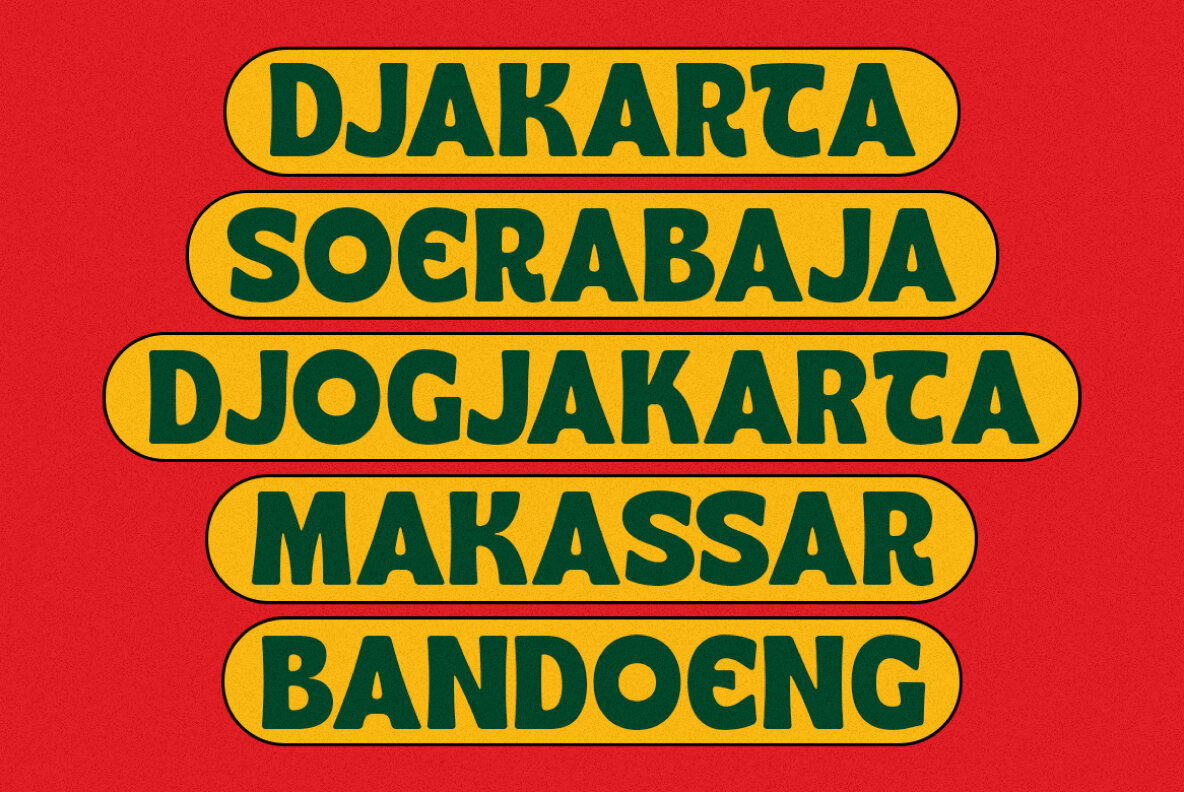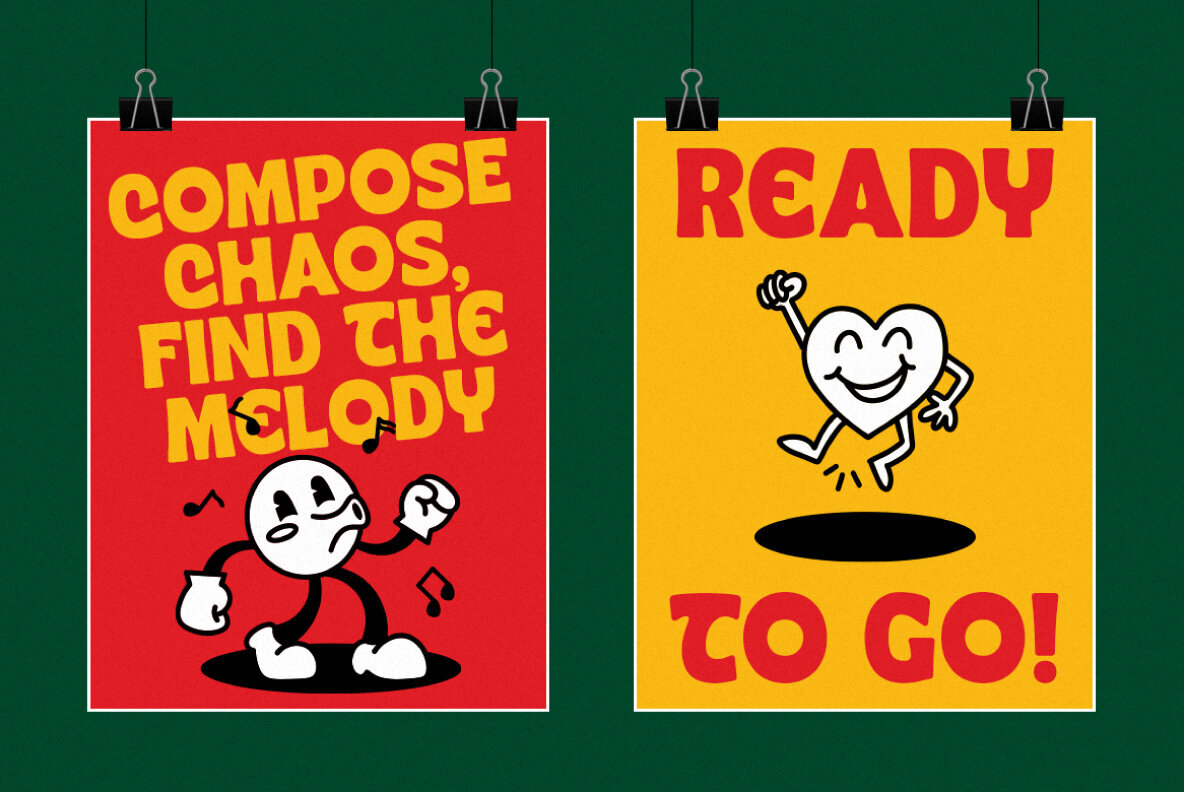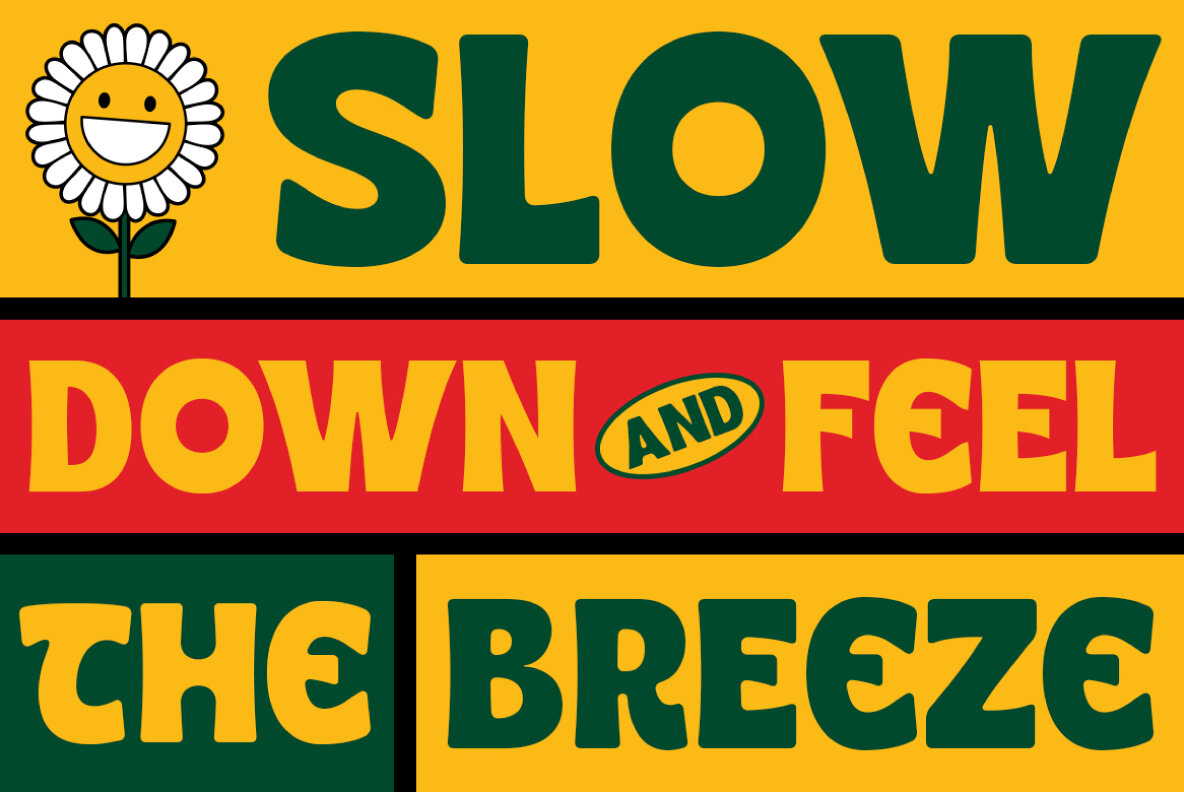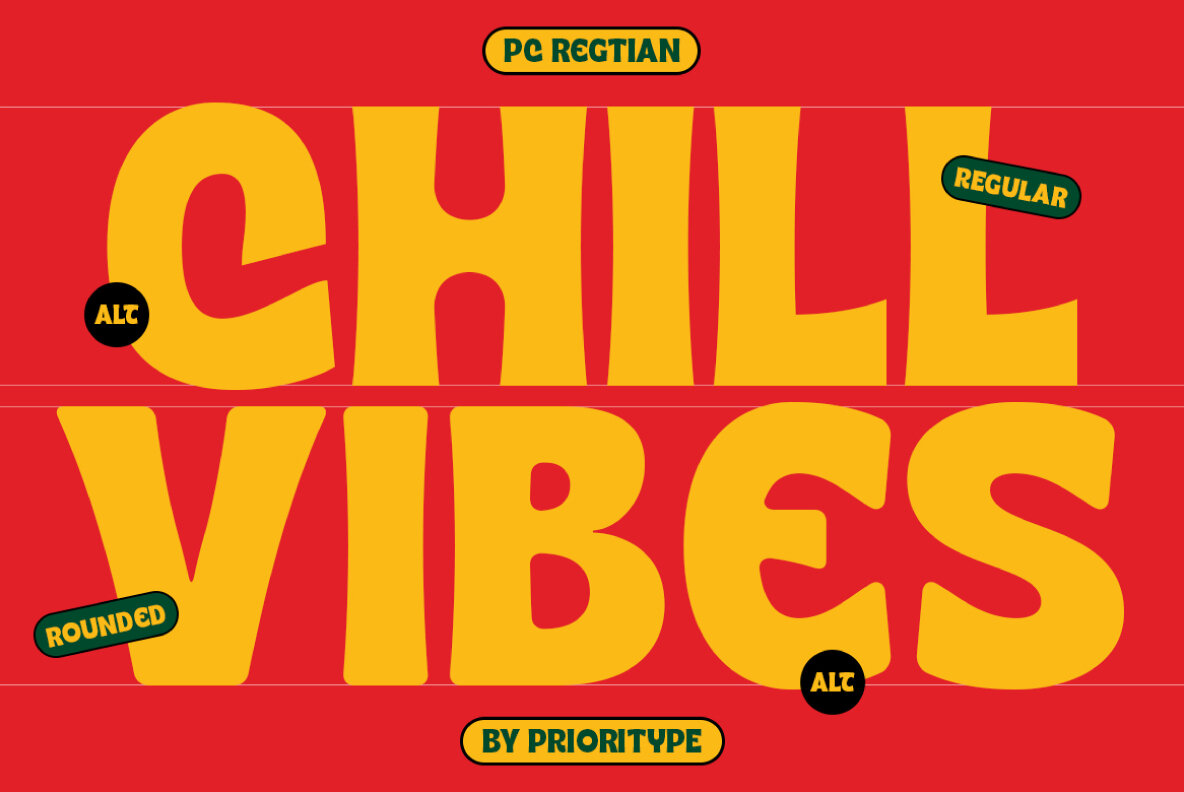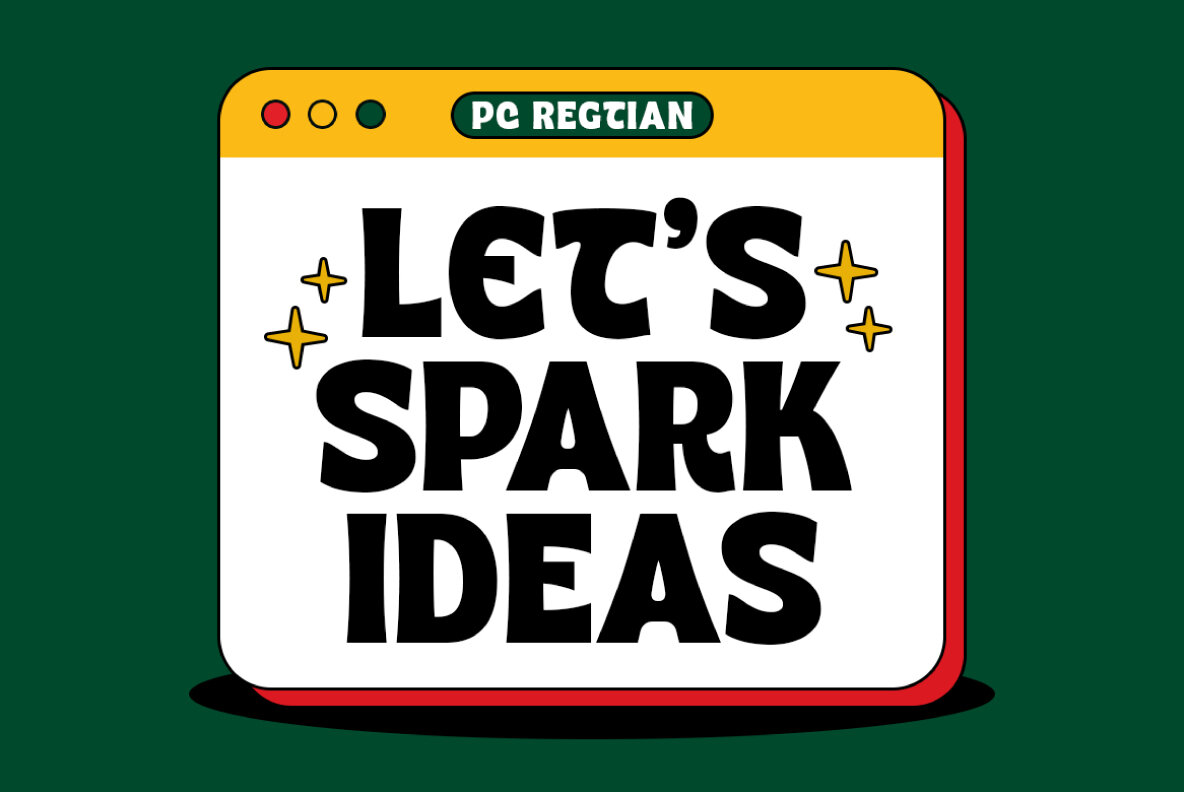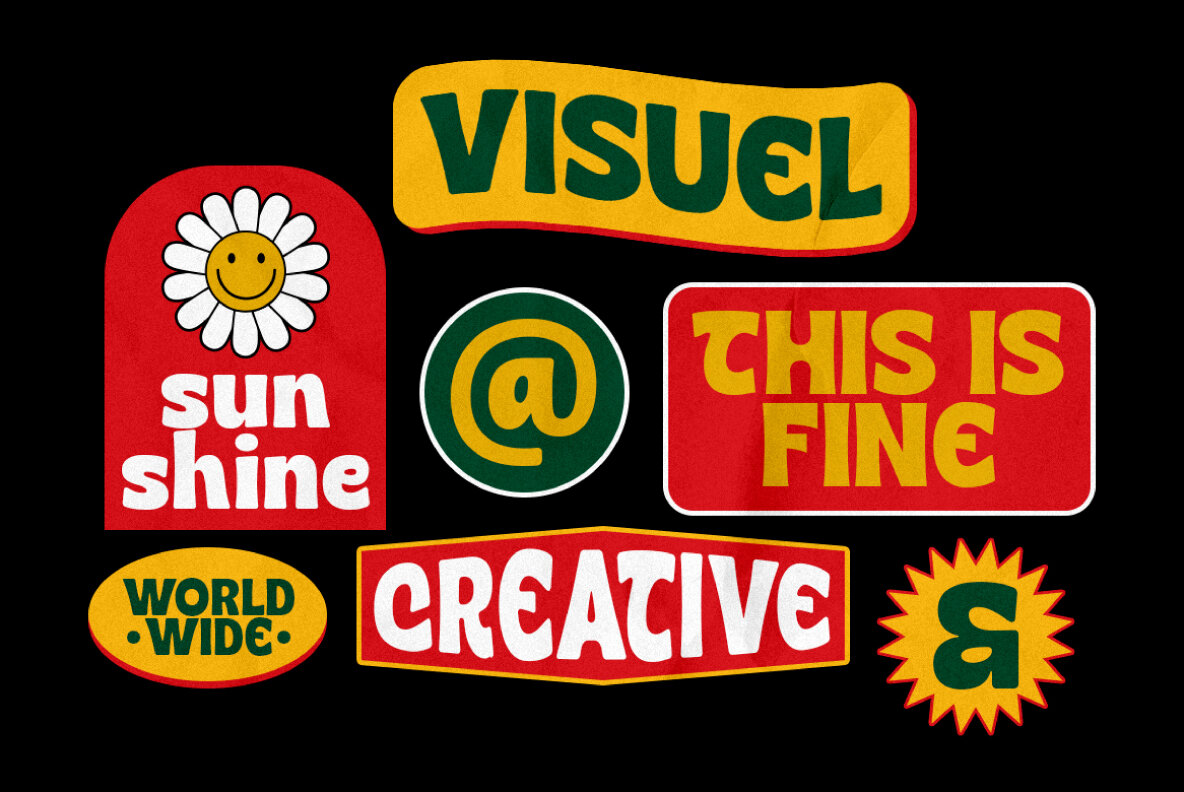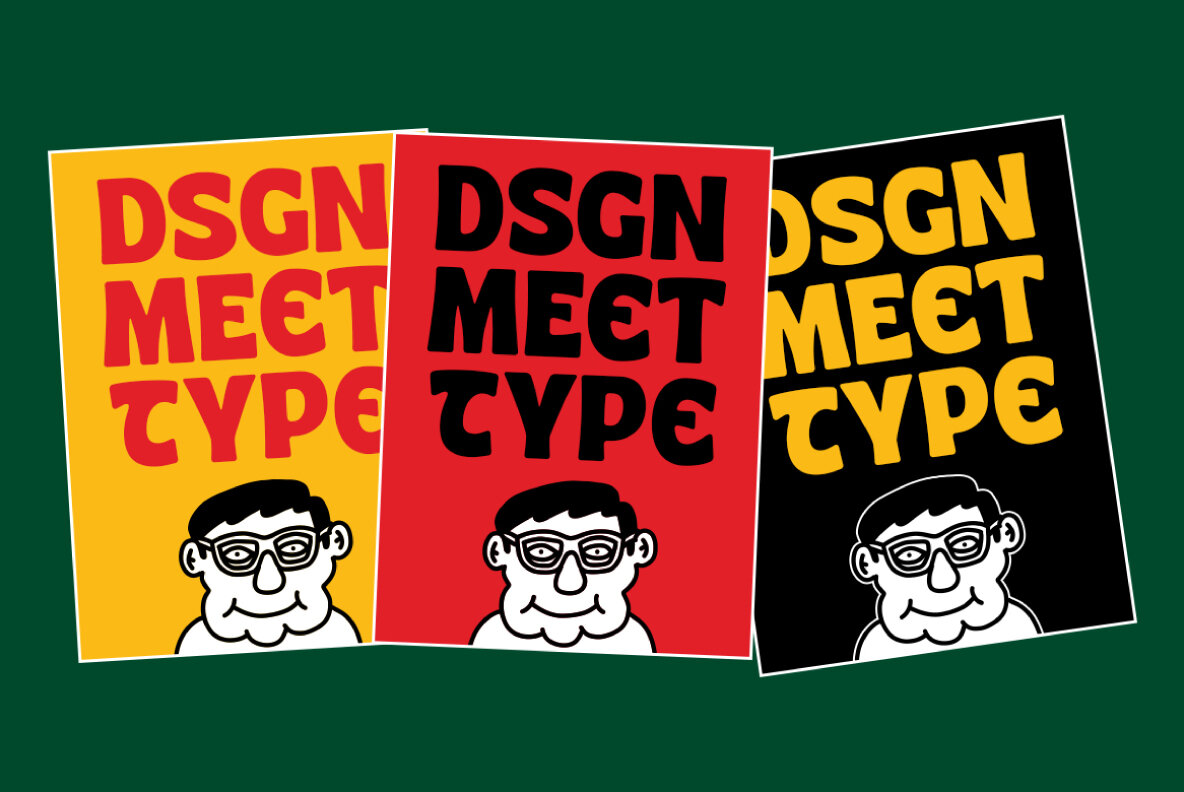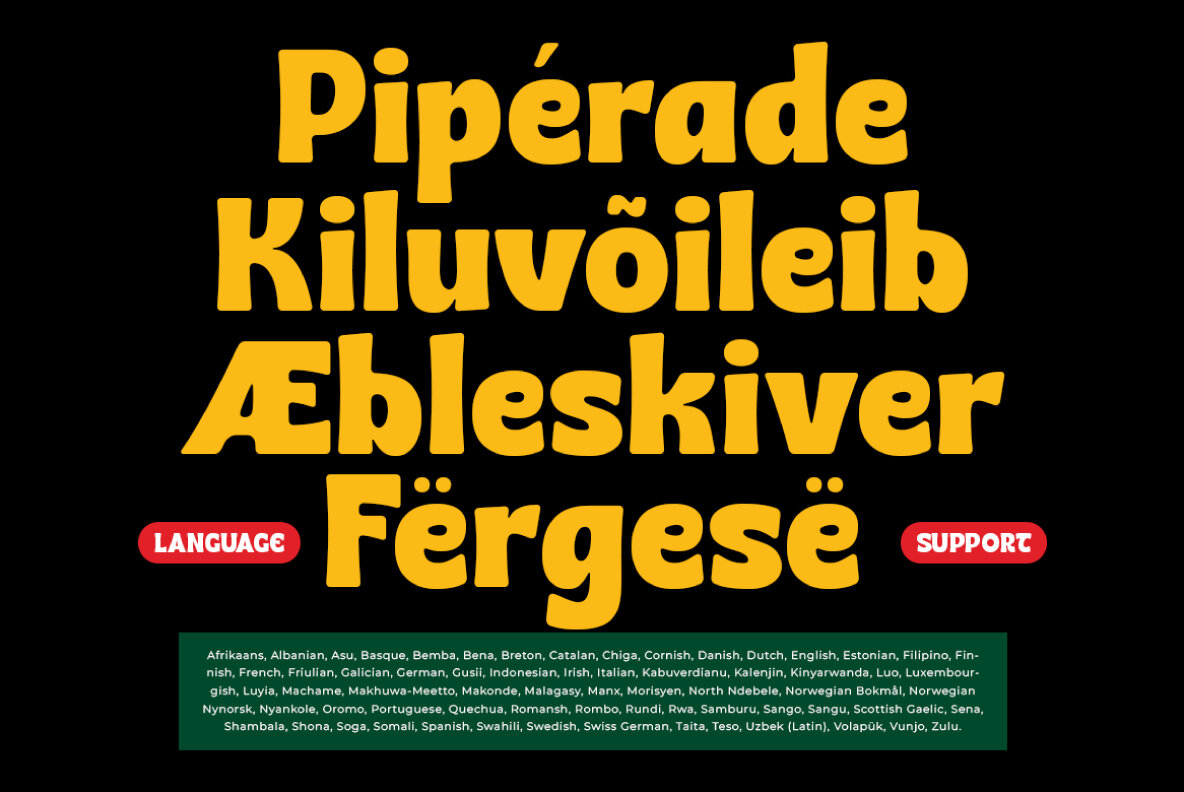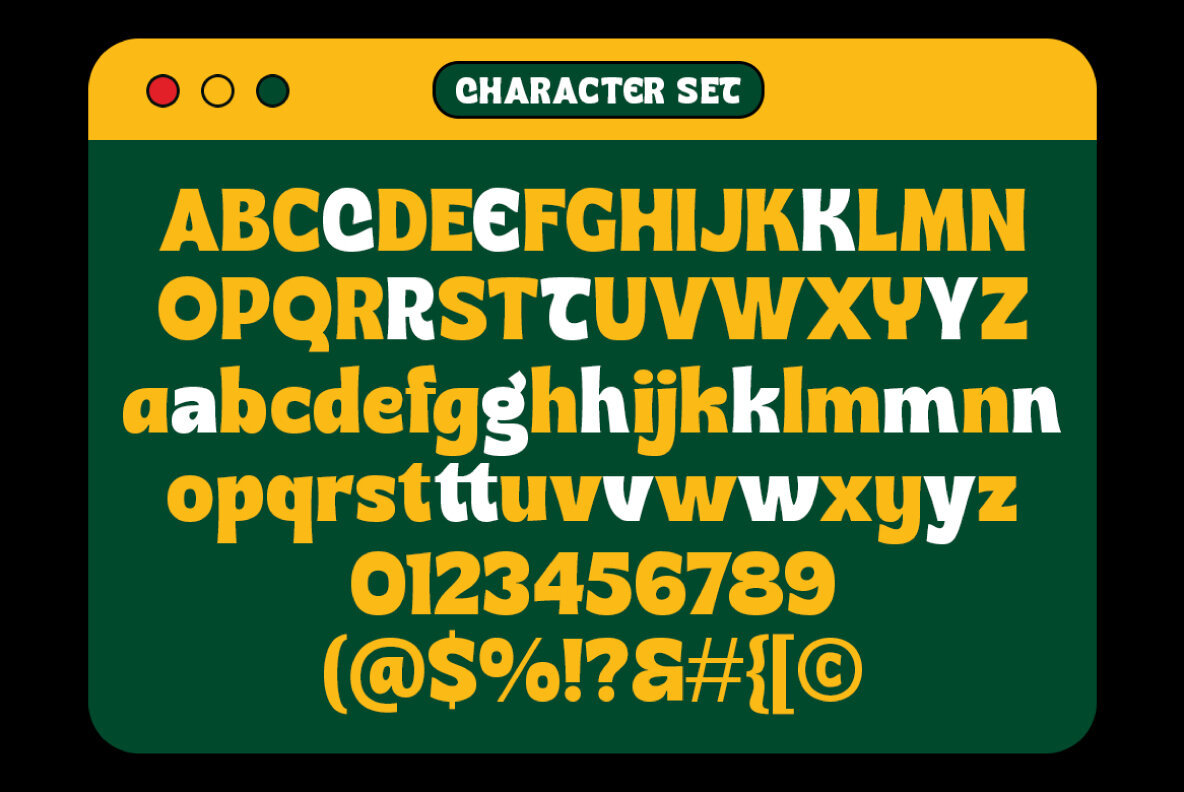
PC Regtian Font
PC Regtian is a striking display font designed to capture attention with its bold presence. Available in both Regular and Rounded styles, it features unique letter alternates, adding a dynamic flair to your design projects. This font is perfect for a wide range of creative applications, from posters and logos to impactful branding efforts. Whether you're seeking a modern aesthetic or a retro vibe, PC Regtian's versatile design adapts to suit your needs.
The font includes a complete set of uppercase and lowercase letters, numerals, punctuation, and multilingual support, offering flexibility across various languages such as Afrikaans, Danish, French, German, Portuguese, Spanish, and many more. Its design ensures clarity and readability, making it an excellent choice for designers looking to make a bold statement in their projects.